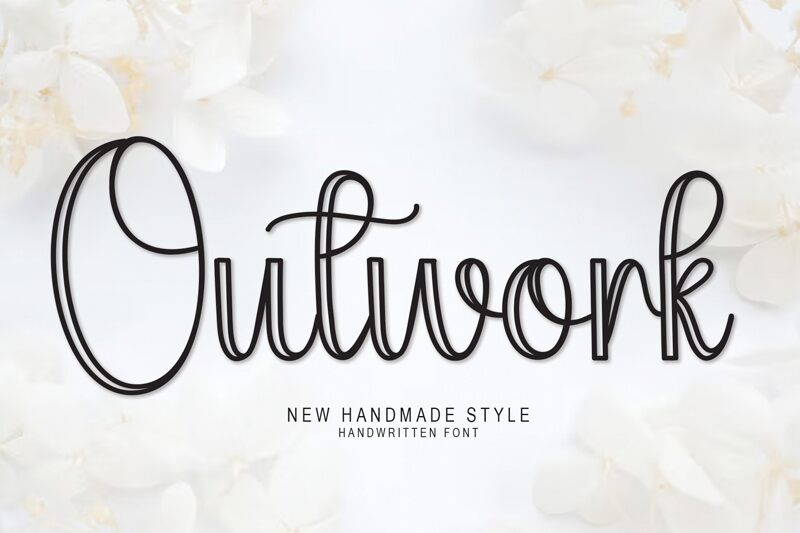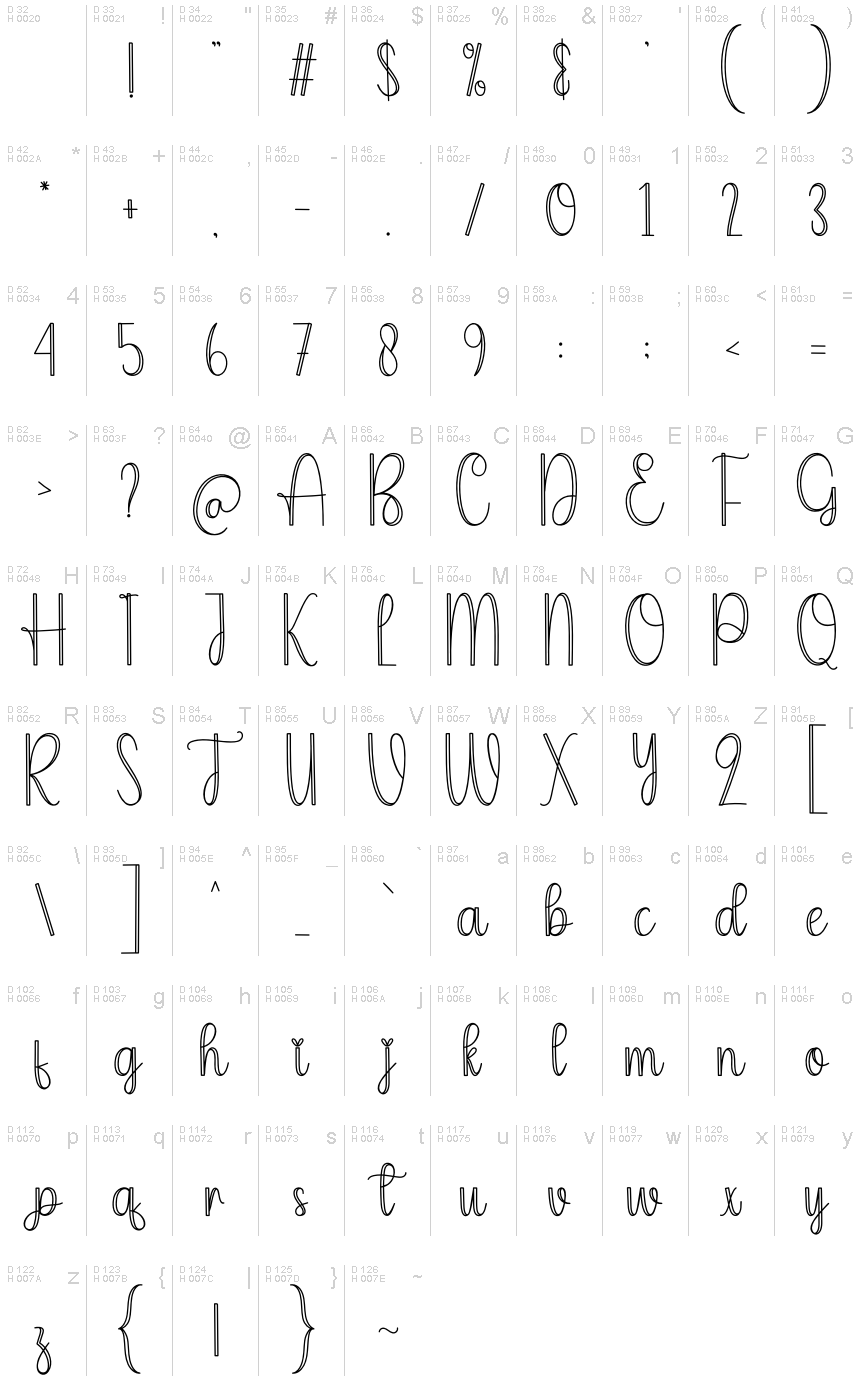
Outwork
Outwork font, designed by Scratchones, captures a playful essence through its charming handwritten style and distinct outline. The fluidity of each letter evokes a sense of spontaneity, while the defined contours add a layer of sophistication, making it visually striking and memorable.
The combination of graceful curves with strategic emphasis in certain characters creates an engaging rhythm that invites closer inspection. This font’s animated energy makes it ideal for projects seeking a lively touch - from branding on whimsical products to vibrant event invitations or eye-catching social media graphics. Outwork effortlessly enhances creative expressions, embodying both friendliness and elegance in any design context.